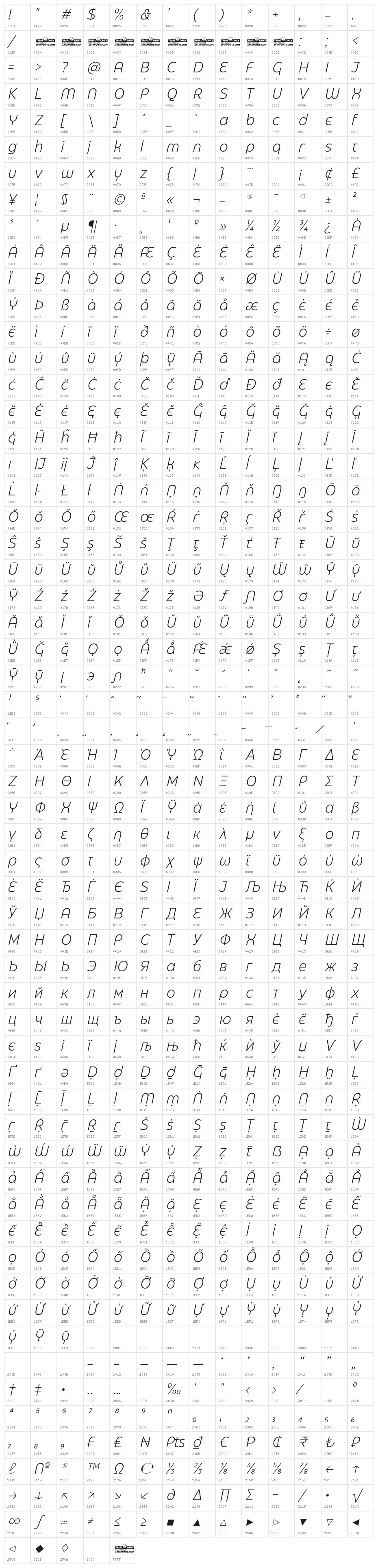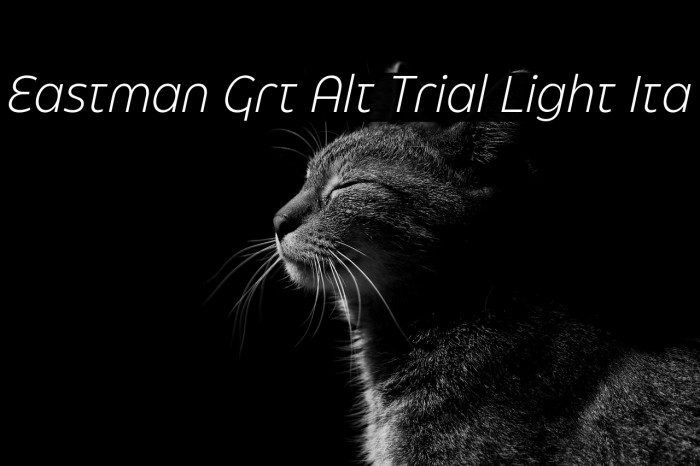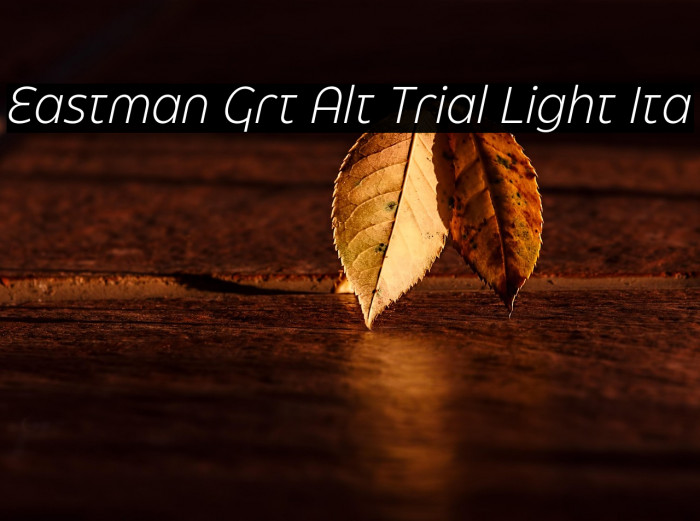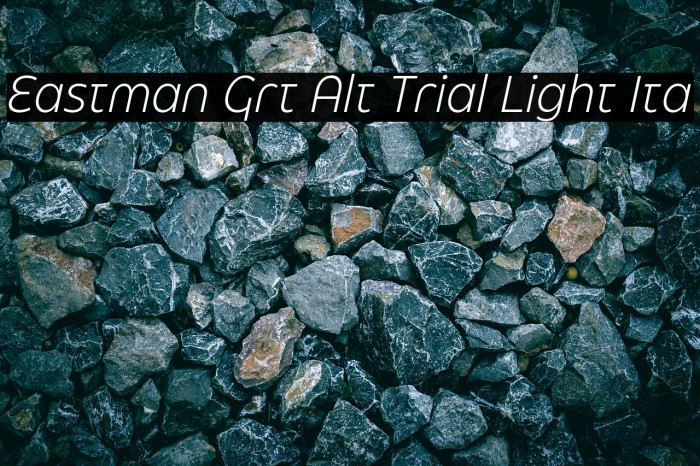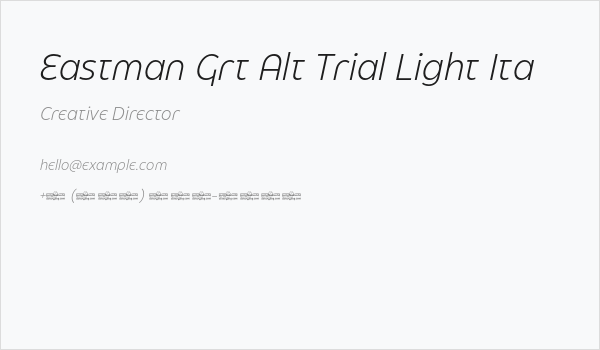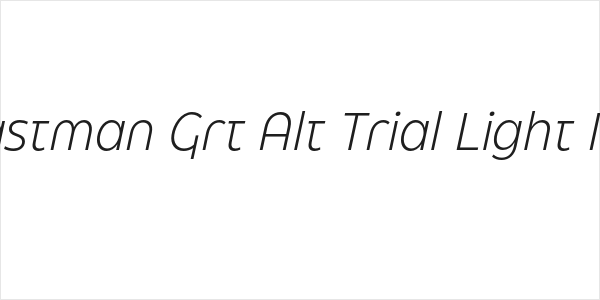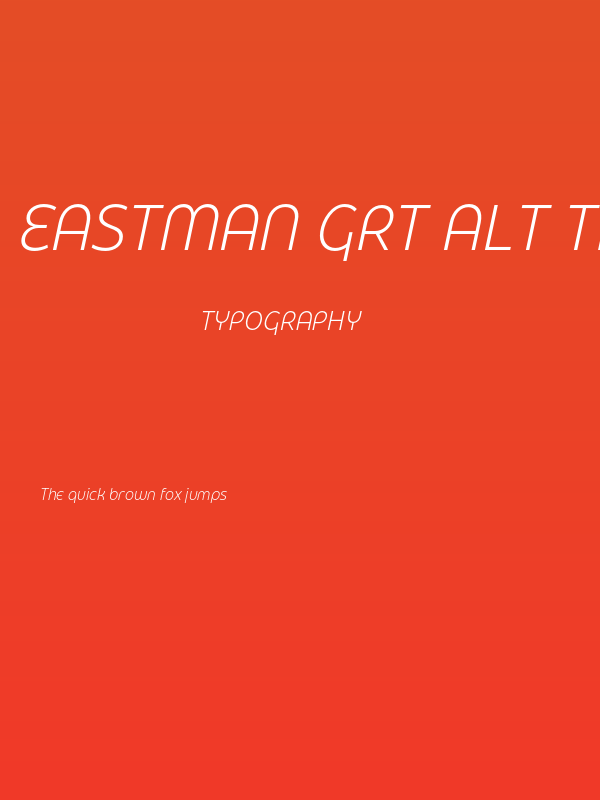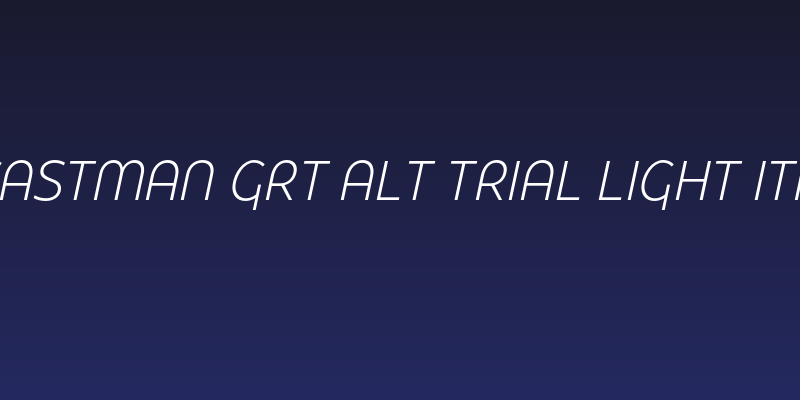
Eastman Grt Alt Trial Light Ita Font
Eastman Grt Alt Trial Light Ita Description
This font features a sleek and modern design with a light and airy feel. The characters are slightly italicized, giving them a dynamic and forward-leaning appearance. The strokes are thin and consistent, providing a clean and elegant look. The uppercase and lowercase letters maintain a uniform style, with rounded edges that add a touch of softness. The numerals and special characters are designed to match the overall aesthetic, ensuring a cohesive appearance across all text. This font is ideal for projects that require a contemporary and sophisticated touch.